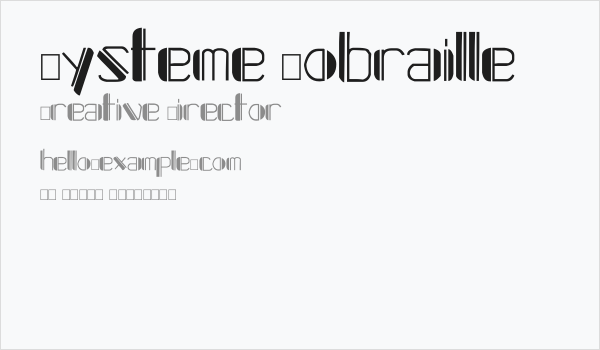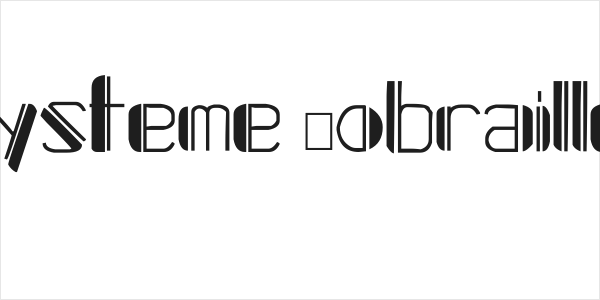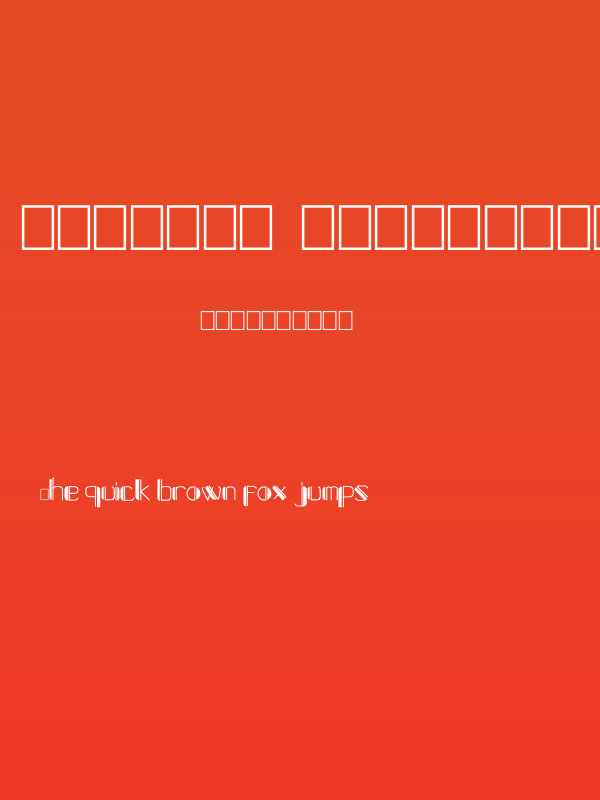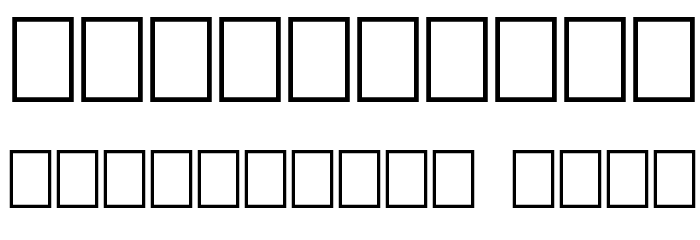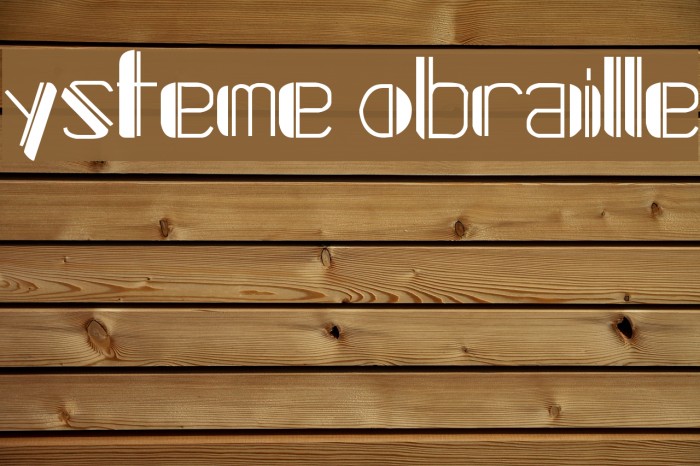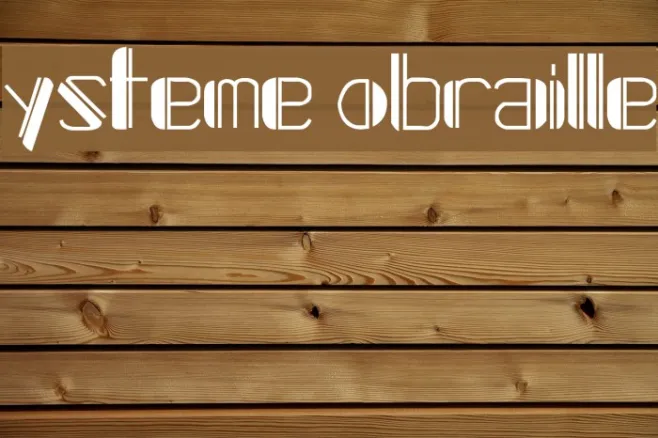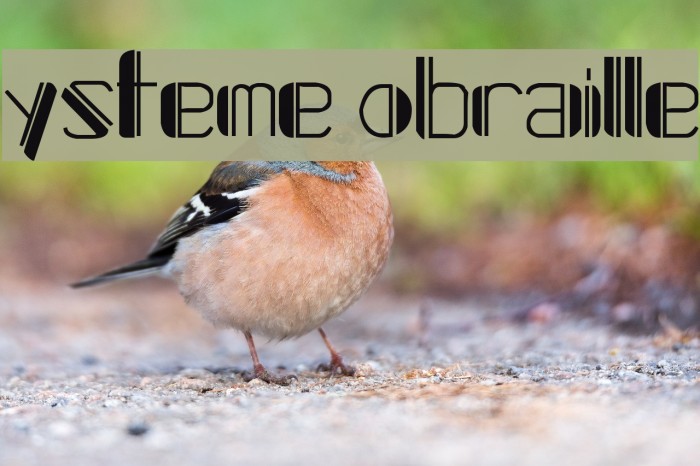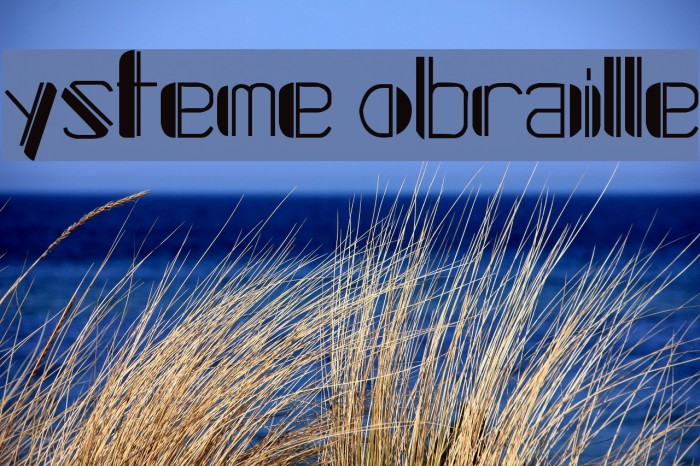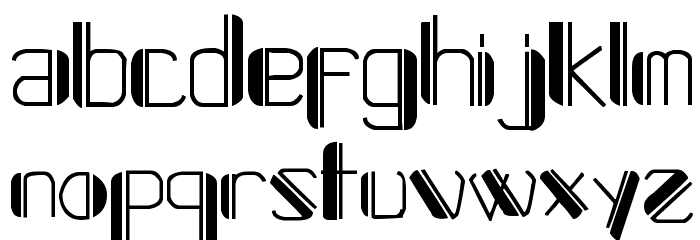
Systeme Robraille Font
Systeme Robraille Description
This font features a modern and futuristic design with a unique geometric style. The lowercase letters are crafted with a blend of sharp angles and smooth curves, creating a dynamic and eye-catching appearance. The strokes are consistent in width, giving it a uniform look. The absence of uppercase letters and numbers suggests a focus on artistic expression rather than traditional readability. The font's design is reminiscent of digital or sci-fi themes, making it suitable for creative and experimental projects. Its distinct style can add a contemporary edge to any design.
| Use Case | Logos, Posters, Digital Art |
| Proposed Projects | Ideal for digital art, sci-fi themed designs, experimental typography projects, and modern branding. |